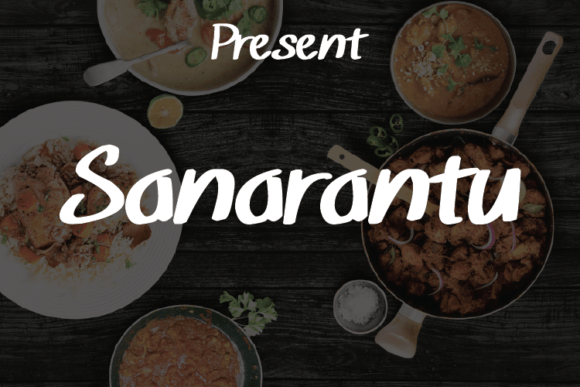
Introducing Sanarantu Font, the Exquisite Gem in the World of Script Fonts
Sanarantu Font, a creation of the talented Eric Kusuma, is an exquisite script font that embodies elegance and luxury. With its impeccable style and modern flair, this typeface is destined to elevate your designs to new heights of sophistication.
Adorned with graceful curves and delicate strokes, Sanarantu Font exudes an air of timeless beauty. Its meticulously crafted letters dance across the page, evoking a sense of refinement and sophistication that will leave your audience spellbound.
Immerse yourself in the world of Sanarantu Font and discover a world of endless creative possibilities. Let your imagination soar as you craft elegant logos that command attention, captivating book or movie design titles that ignite curiosity, and fashion brands that exude an aura of luxury.
Sanarantu Font is the perfect choice for those seeking to make a lasting impression. Its versatility knows no bounds, making it an ideal font for magazines, clothing, quotes, and more. Unleash your creativity and let Sanarantu Font transform your designs into masterpieces of art.
**Why Sanarantu Font is the Perfect Choice for Your Designs:**
* **Unparalleled Elegance:** Sanarantu Font's graceful curves and delicate strokes create an aura of timeless elegance that will elevate your designs to new heights.
* **Modern Flair:** Infused with a touch of modernity, Sanarantu Font strikes the perfect balance between classic and contemporary, ensuring your designs stay relevant and captivating.
* **Versatility Unleashed:** From elegant logos to captivating book titles to fashion brands that exude luxury, Sanarantu Font's versatility knows no bounds. Let your imagination run wild and explore the endless creative possibilities it offers.
* **Effortless Customization:** Tailoring Sanarantu Font to your unique vision is a breeze. With its user-friendly interface and extensive customization options, you can effortlessly mold it to suit your specific design needs.
* **Unleash Your Creativity:** Sanarantu Font is the perfect canvas for your creativity. Let your imagination soar as you craft designs that reflect your unique style and vision, leaving a lasting impression on your audience.
Don't settle for ordinary fonts. Embrace the beauty and elegance of Sanarantu Font and elevate your designs to new heights. Experience the magic of this exquisite script font today and unlock a world of creative possibilities.